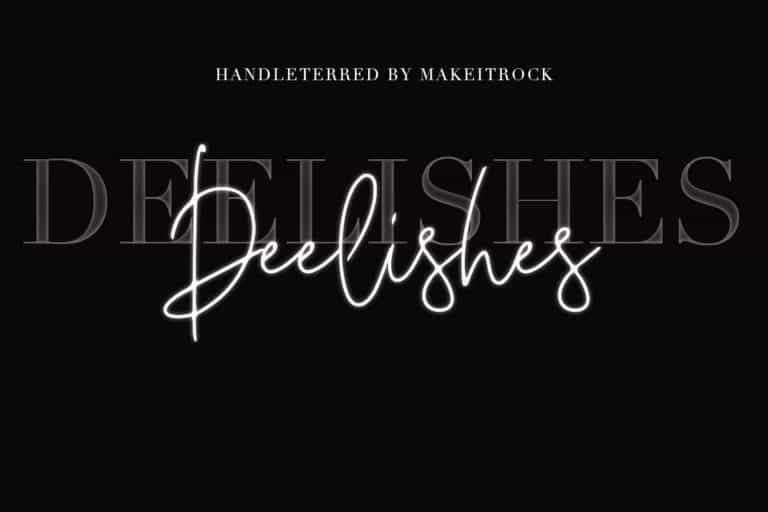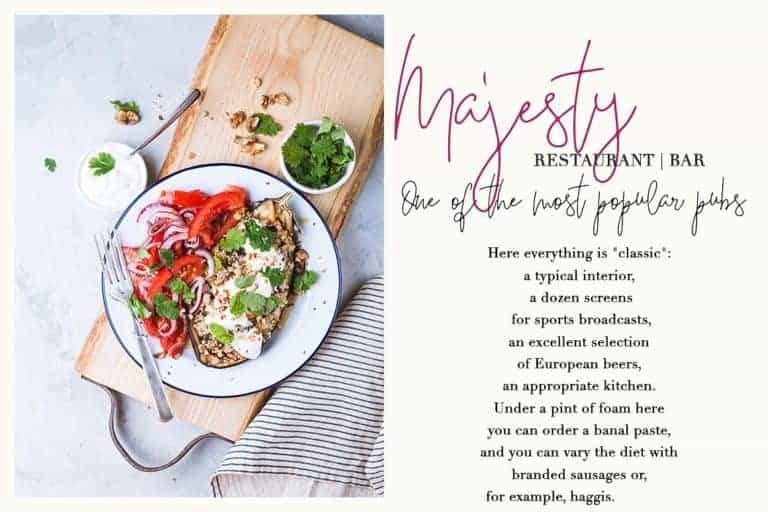
Today a brand new cute and playful summer invitation and celebration handwritten script DEELISHES. Ideal for creating logo designs and personalizing your calligraphy work with an extra flair. It also aims to create an appealing text style by paying a lot of attention to the choice of letters.